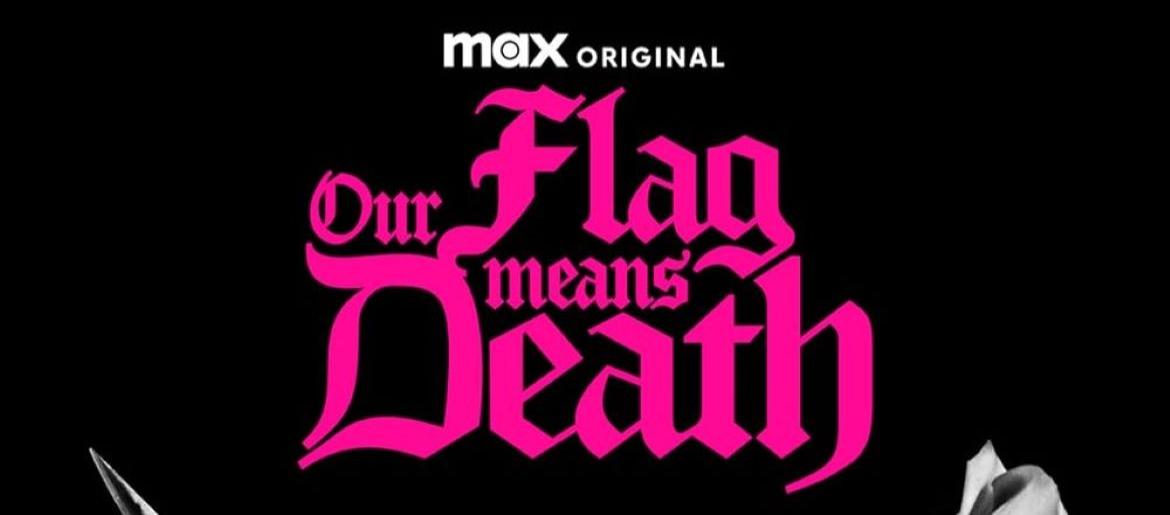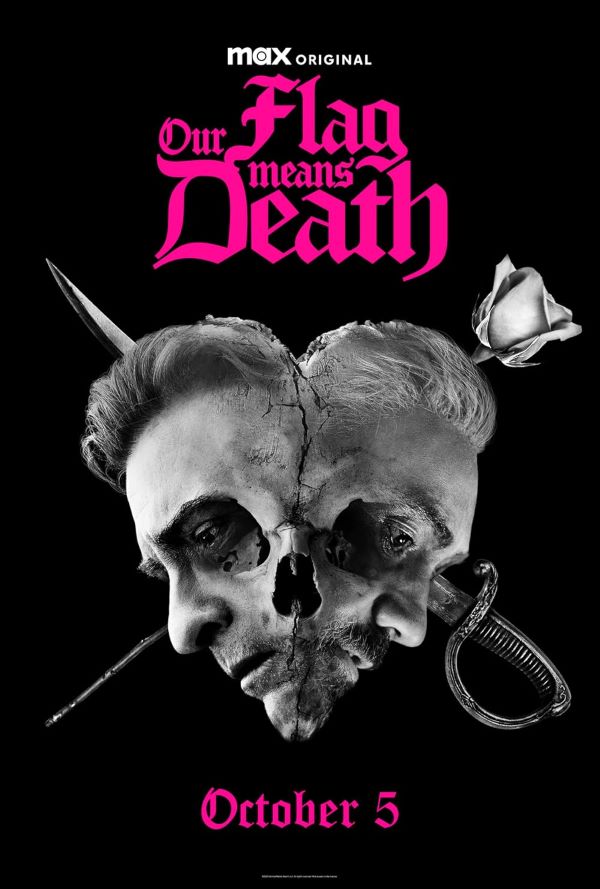
Our Flag Means Death Font
What Font is Our Flag Means Death?
Our Flag Means Death Font has a whimsical yet classic pirate-inspired design that fits perfectly with the show’s adventurous and humorous spirit. While the original typeface appears to be custom designed, the closest free alternative we found is Seagram Tfb, which captures a similar vintage elegance with ornate details and bold strokes. This font works beautifully for projects that want to evoke a sense of old-world charm and nautical flair.
About Our Flag Means Death
Our Flag Means Death is a comedy series created by David Jenkins, first released in 2022. It stars Rhys Darby as Stede Bonnet, a gentleman-turned-pirate, and Taika Waititi as the infamous Blackbeard. The show blends historical adventure with quirky humor, exploring themes of identity, freedom, and unconventional love on the high seas. Its mix of sharp wit and heartfelt storytelling has made it a standout in modern pirate-themed entertainment.